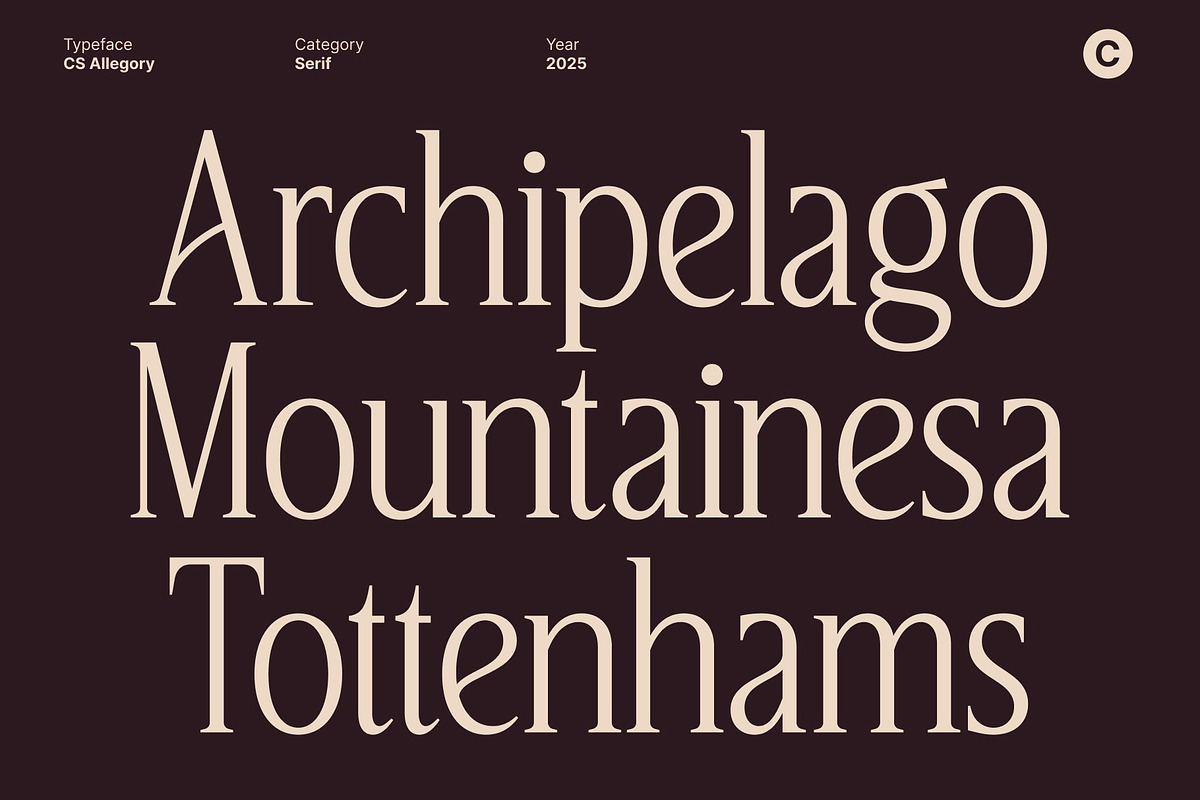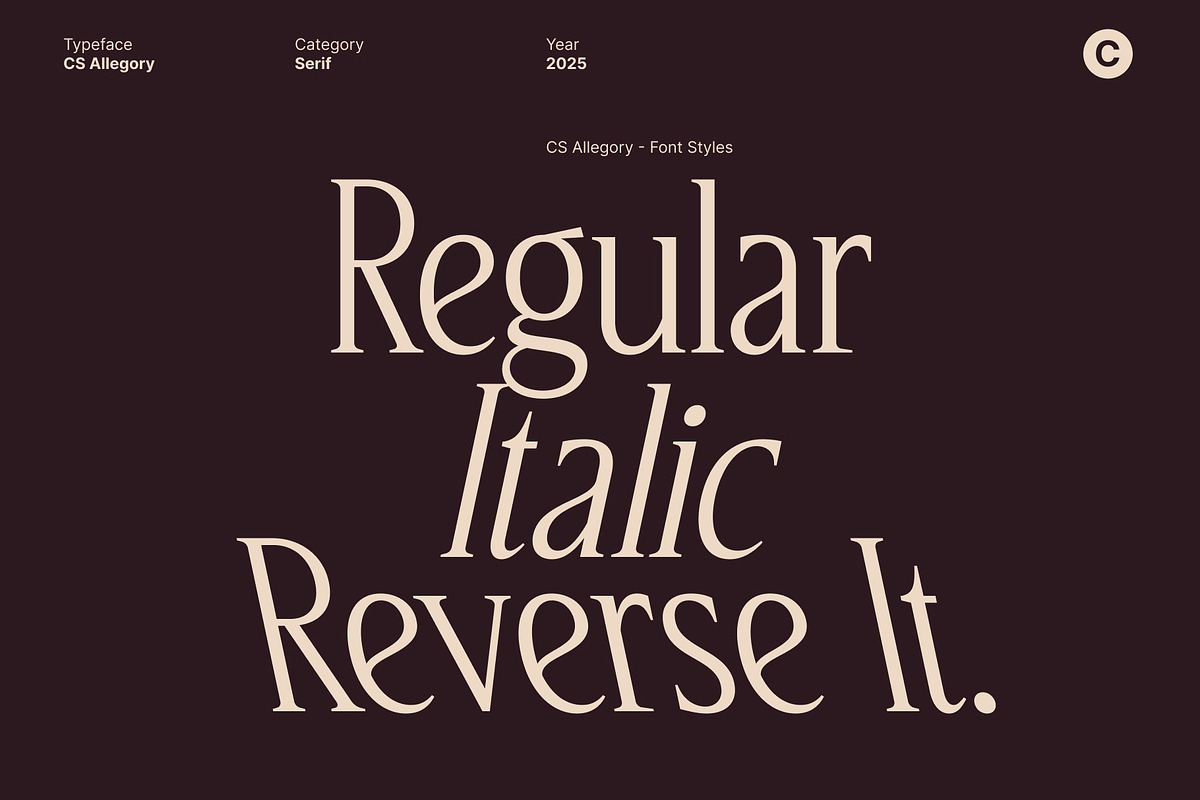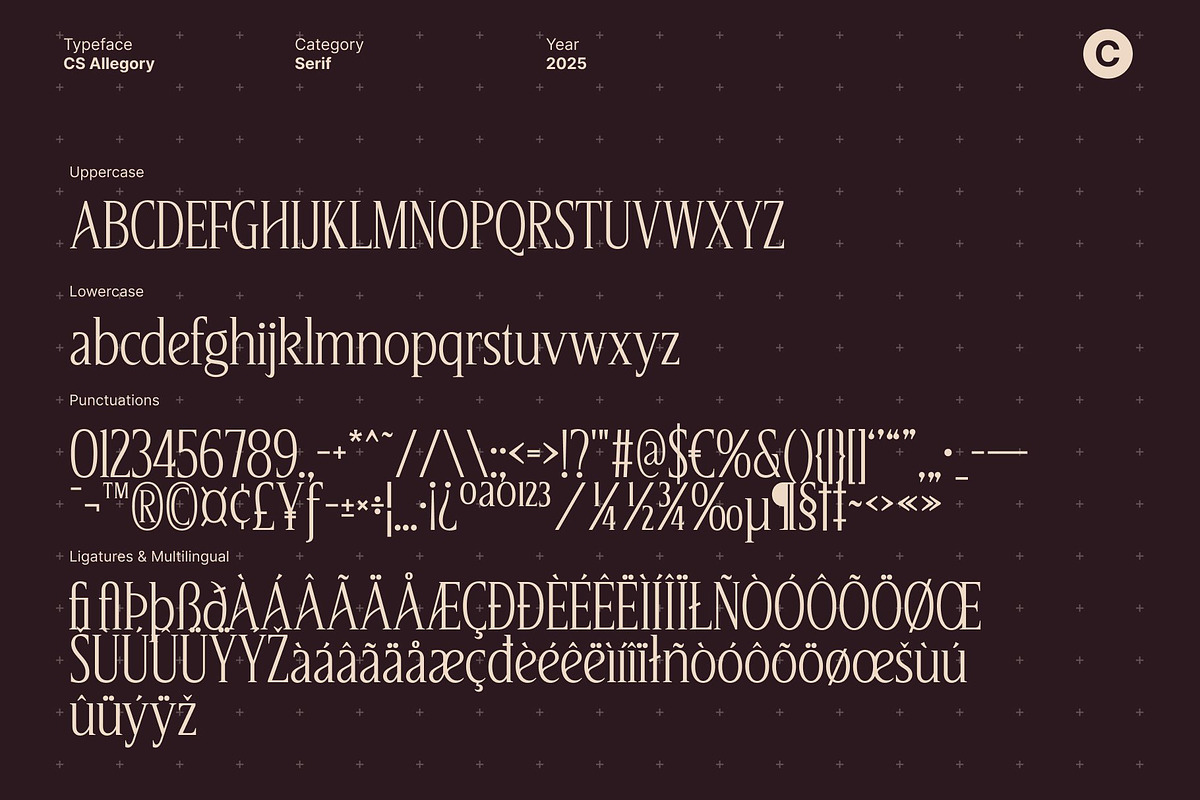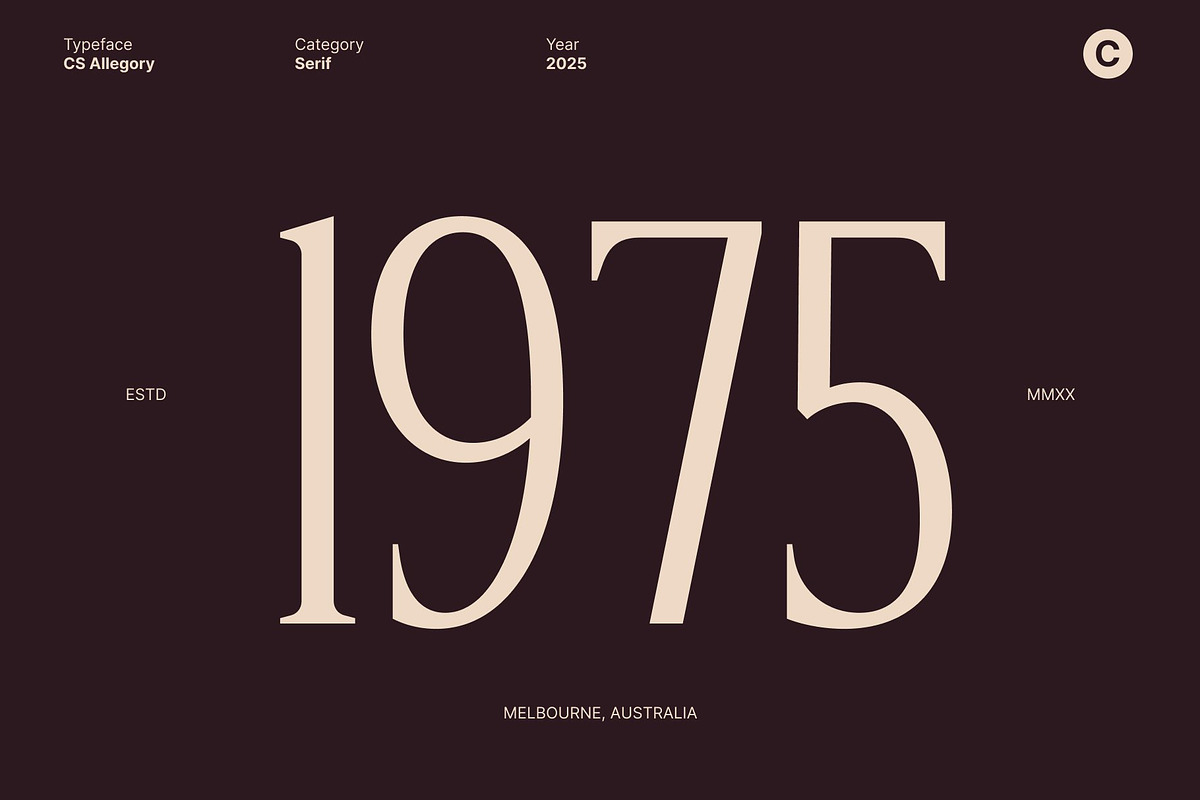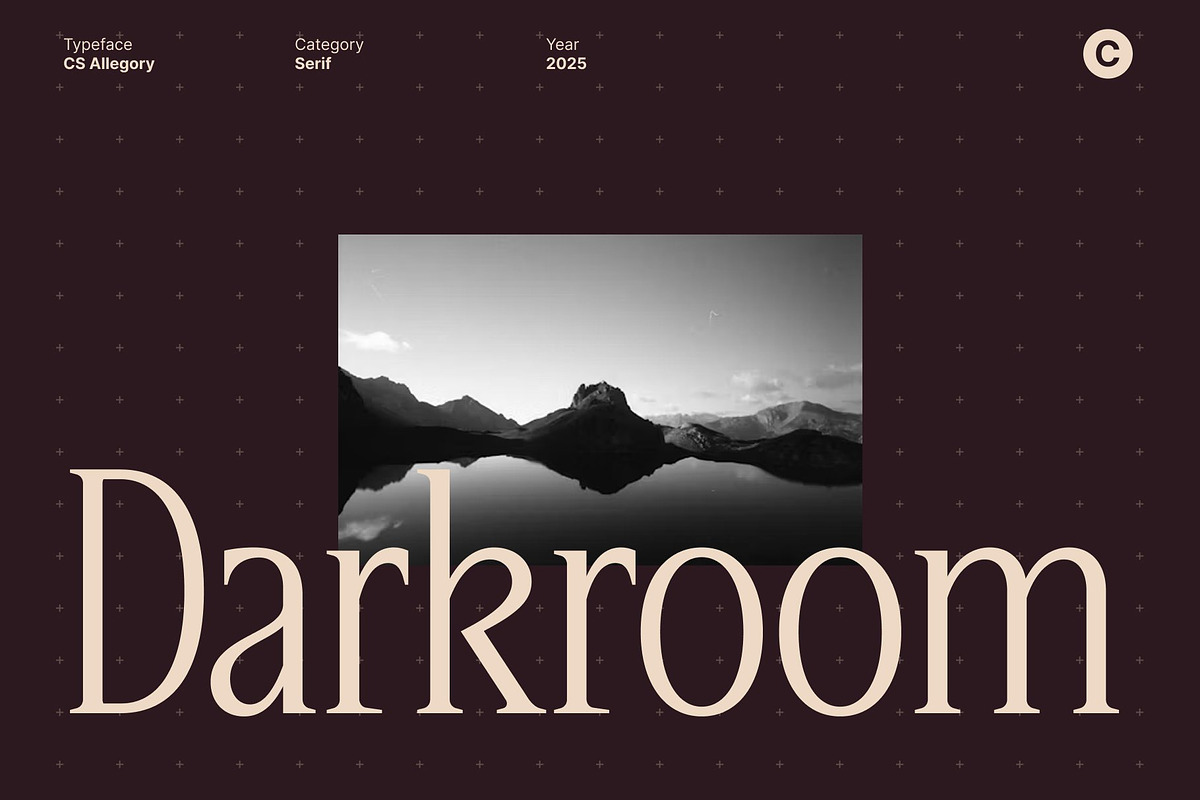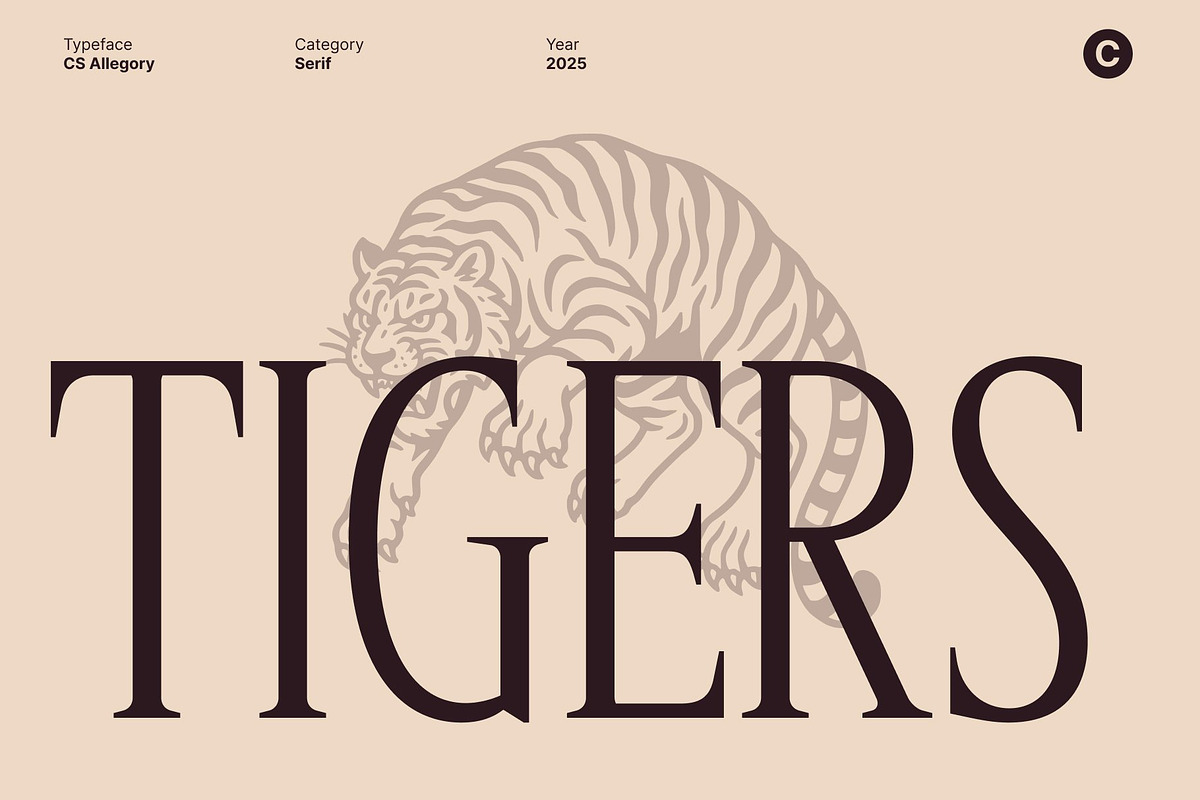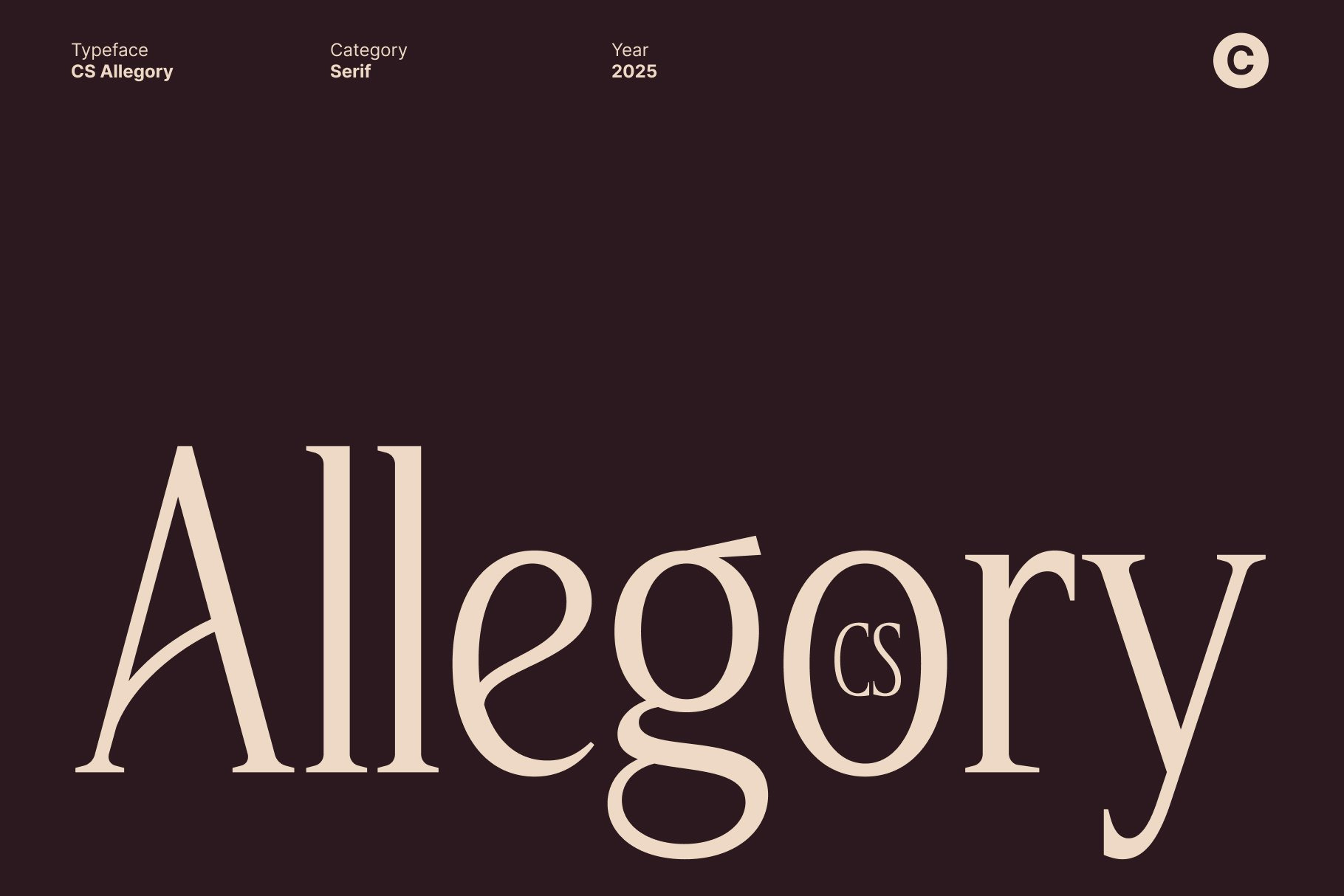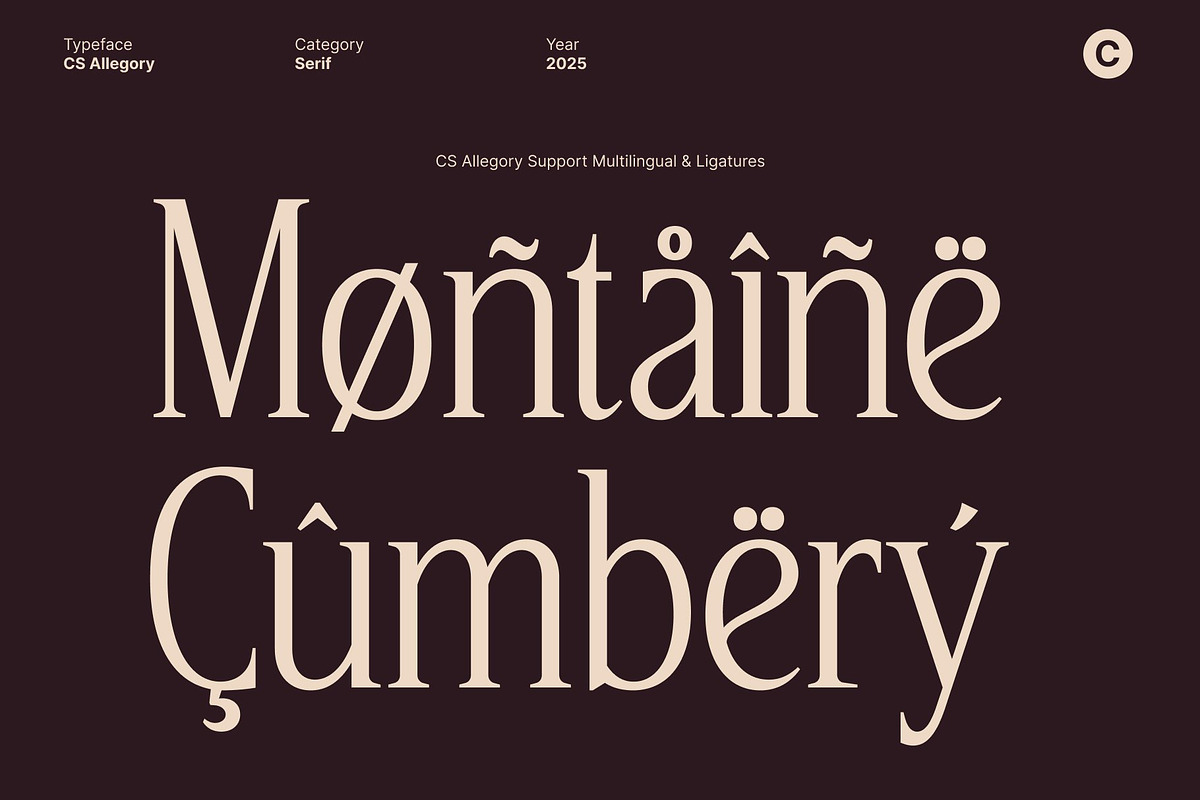
CS Allegory – Elegant Serif Font
CS Allegory: Timeless Sophistication in Serif Form
Elegant Serif Inspired by Renaissance Craftsmanship This is an elegant serif font that captures the beauty and refinement of Renaissance-inspired letterforms. With its graceful curves and balanced proportions, this typeface embodies a sense of tradition and sophistication while maintaining a clean, modern sensibility. Every stroke feels deliberate and composed, bringing timeless artistry to contemporary design.
Refined Curves for a Luxurious Impression Each letter in this font is sculpted with refined curvature and precise detailing, creating a high-end aesthetic that radiates confidence and class. The smooth flow of its serifs and subtle contrast in line weight make it perfect for conveying luxury, intellect, and craftsmanship in both print and digital mediums.
Perfect Harmony Between Classic and Modern Design This font bridges the past and present drawing on classical Renaissance forms while adapting them to modern typographic standards. This fusion makes it ideal for designers seeking a typeface that is both timeless and versatile, able to elevate traditional compositions or complement minimalist layouts with grace.
Ideal for Editorial, Branding, and Packaging Perfectly suited for book design, editorial layouts, luxury branding, and packaging, this font adds a polished, professional tone to any project. Whether used for elegant headlines, refined logotypes, or sophisticated text compositions, this font communicates heritage, quality, and enduring beauty with every letter.